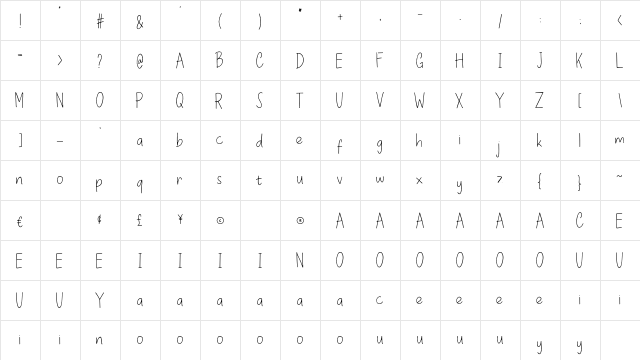
La Petite Regular
| Designer | Iis Syifauarrahmah & Ahmad Syarif Afandi (peterdraw) |
Design Context for La Petite Typeface
La Petite offers clean, dependable letterforms without strong stylistic allegiance, making it a practical choice for designers who need flexibility.